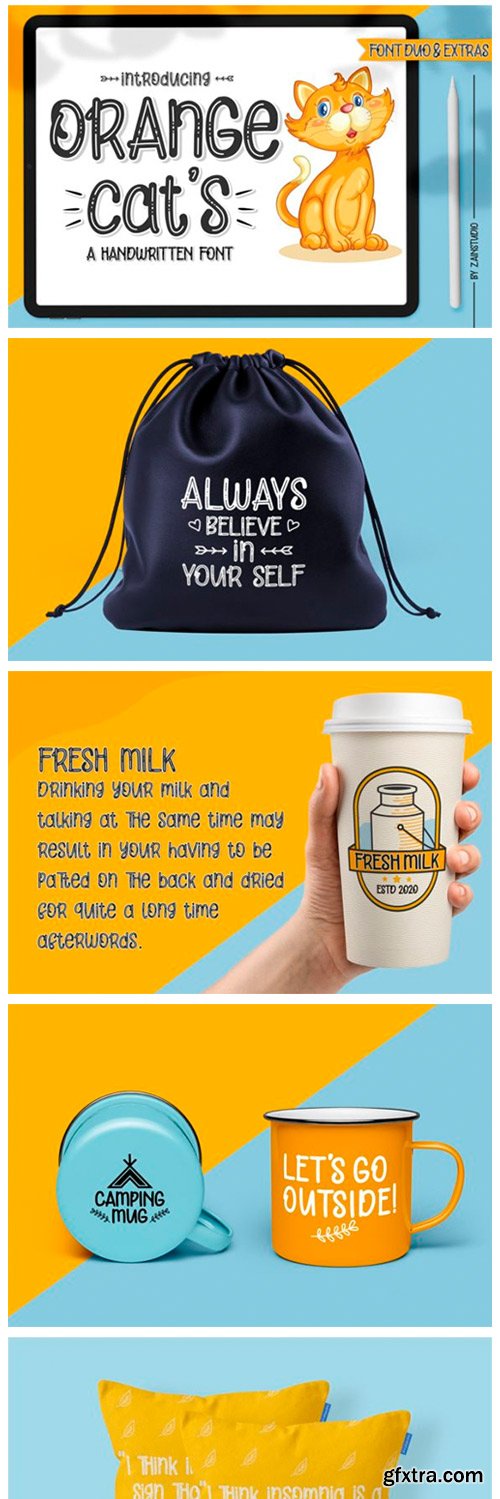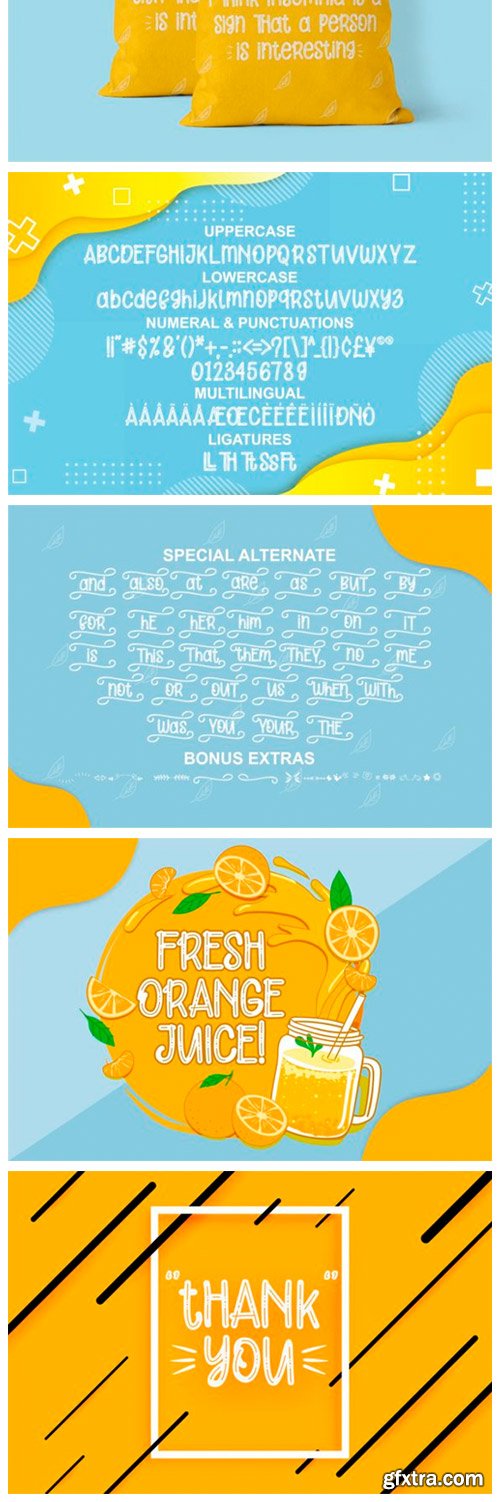
Orange Cat's Font
Orange Cat’s is a cute and casual handwritten font with an incredibly friendly feel. It features gorgeous swashes and ligatures that make this script incredibly versatile. Whether you’re looking for fonts for Instagram or calligraphy scripts for DIY projects, Orange Cat’s will turn any creative idea into a true piece of art!